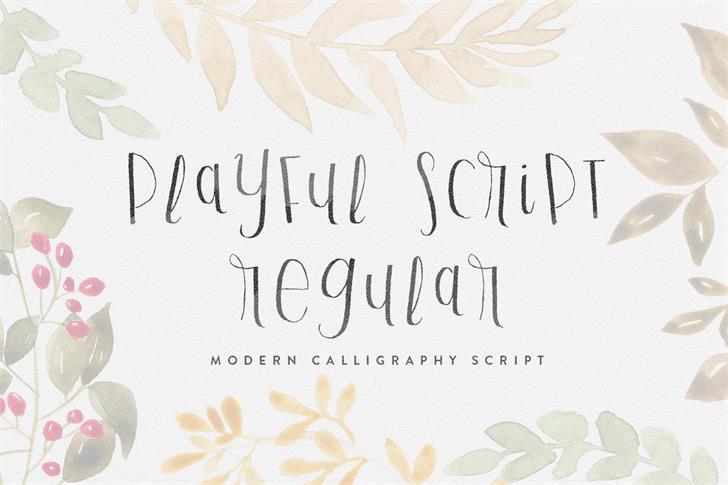
Free Playful Script Font
Free playful script font for graphic designers that need to present their work in a professional way. This is a downloadable free font file brought to you by Font Space. Amaze your fellow designers and create stunning designs with this fancy font.